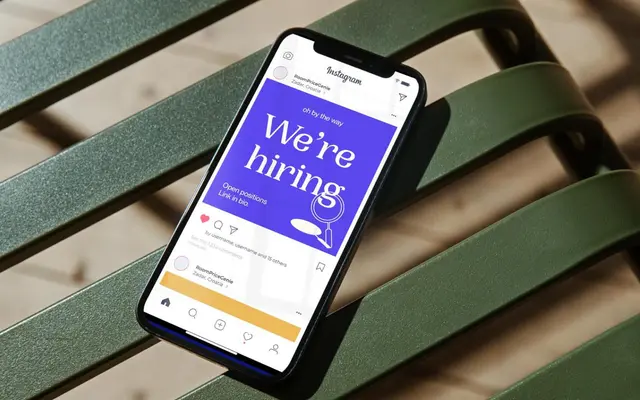
PP Woodland
Pangram Foundry · Mat Desjardins · 2019
A curvy organic serif by Mat Desjardins in six weights, with a quirky lowercase e, ligatures and curvier alternates for editorial and brand work.
A serif with smooth, organic curves and quiet quirks, sitting between elegance and warmth across six weights from Ultralight to Heavy. Each style carries roughly 2,500 glyphs, with ligatures, old-style figures and a stylistic set of curvier alternates so the same family can hold a calm body text or a more theatrical headline. Useful for luxury brands, literary magazines and contemporary editorial.
Pangram lists it under Organic and Serif. A curvy serif with around 2,500 glyphs per style, soft modulation and quirky details such as a twisted lowercase e.